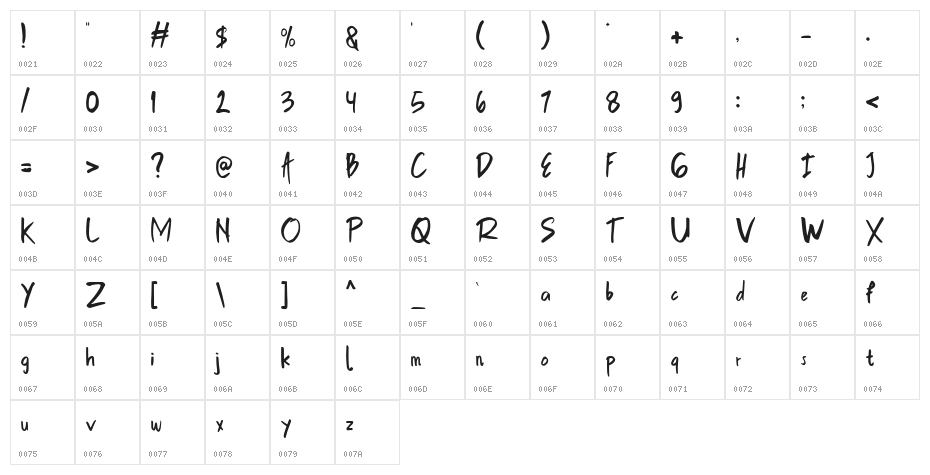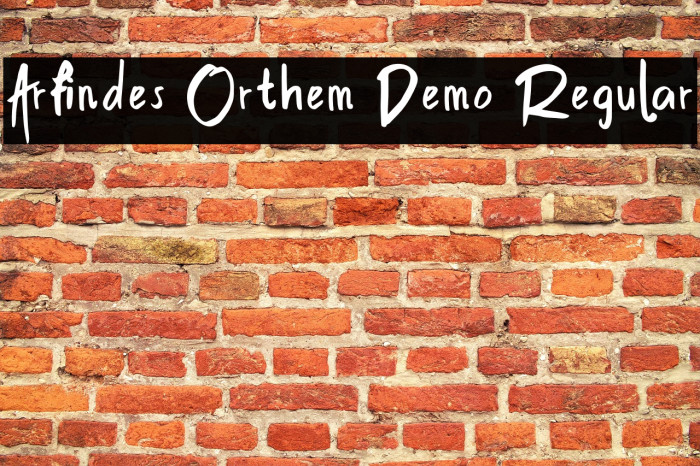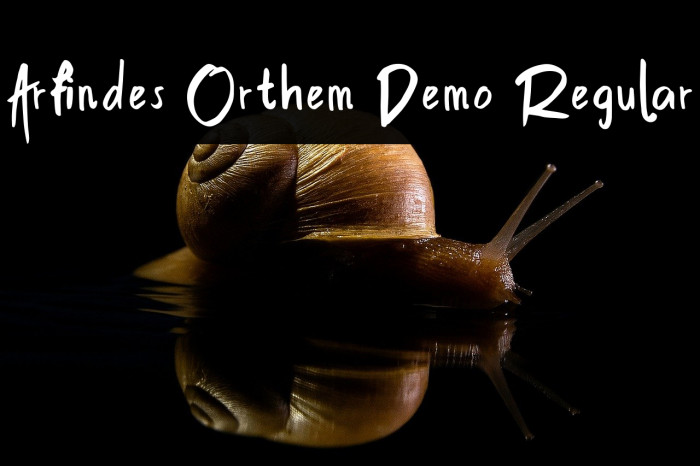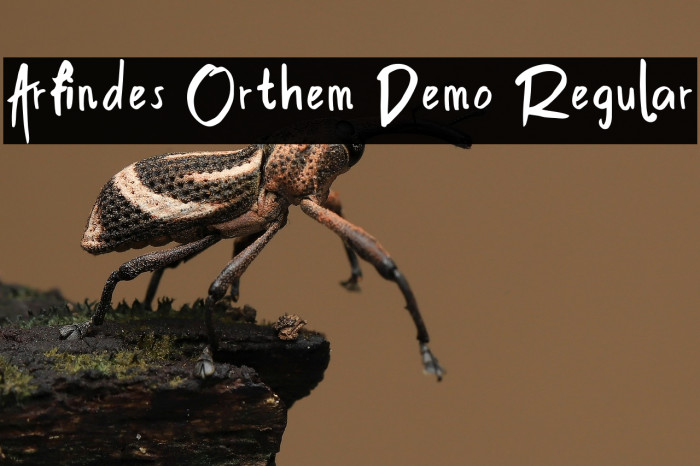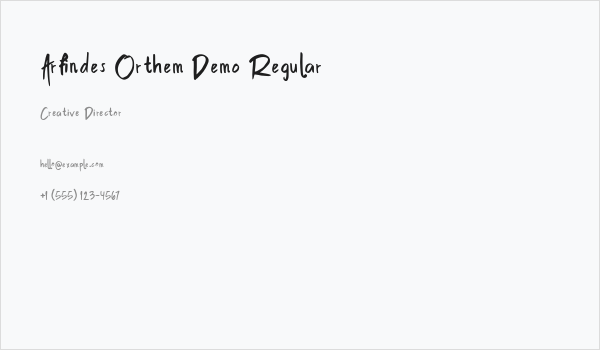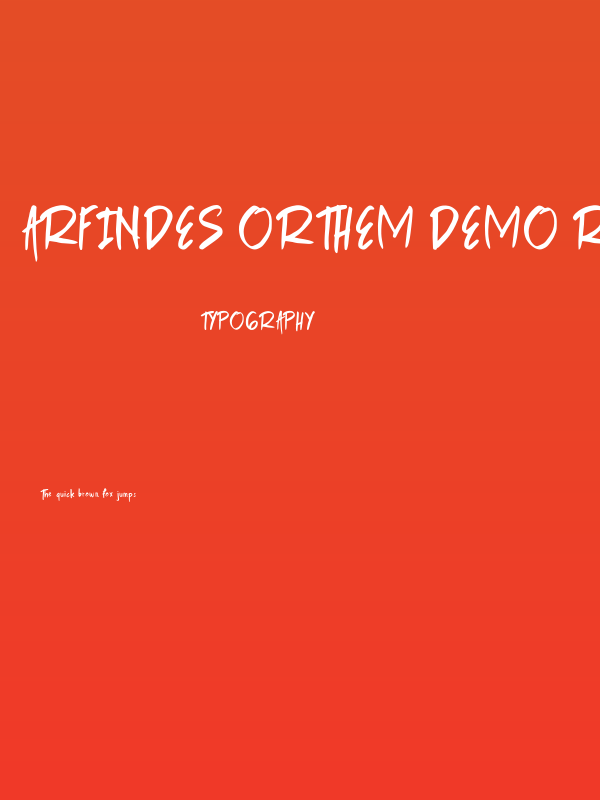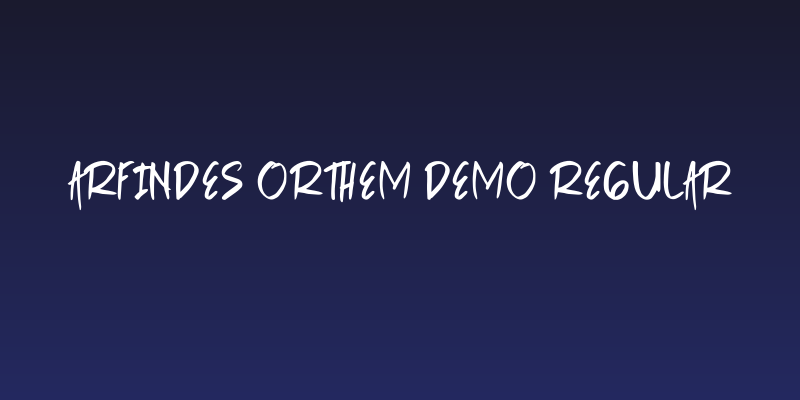
Arfindes Orthem Demo Regular Font
A playful, handwritten font with a casual and informal style, featuring irregular strokes and a lively appearance.
Overall StyleCasual, Playful
Use CaseLogos, Invitations, Greeting cards
Proposed ProjectsGreeting cards, invitations, casual branding.